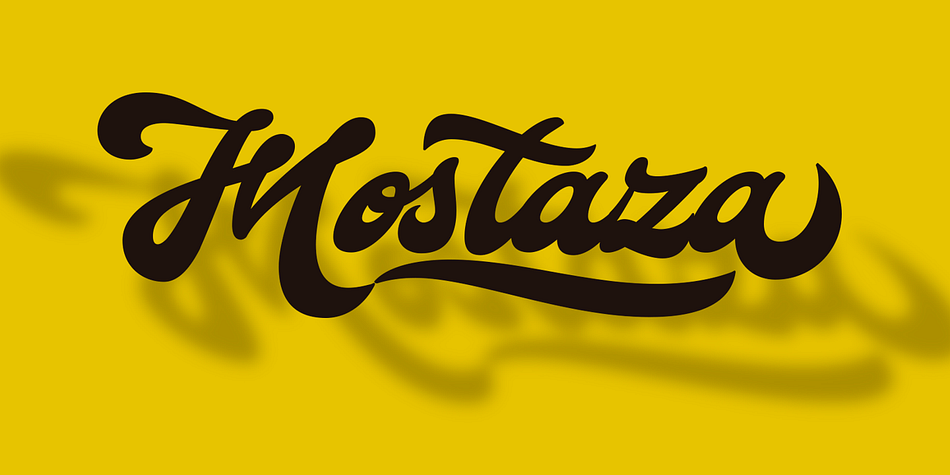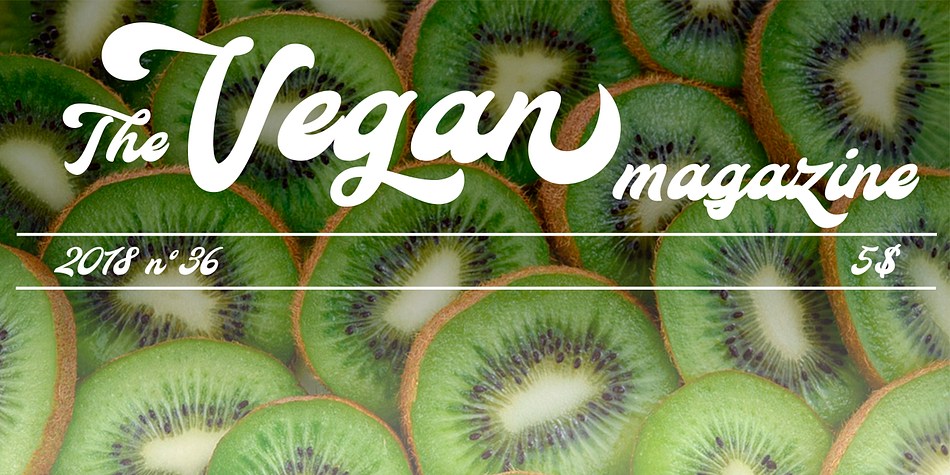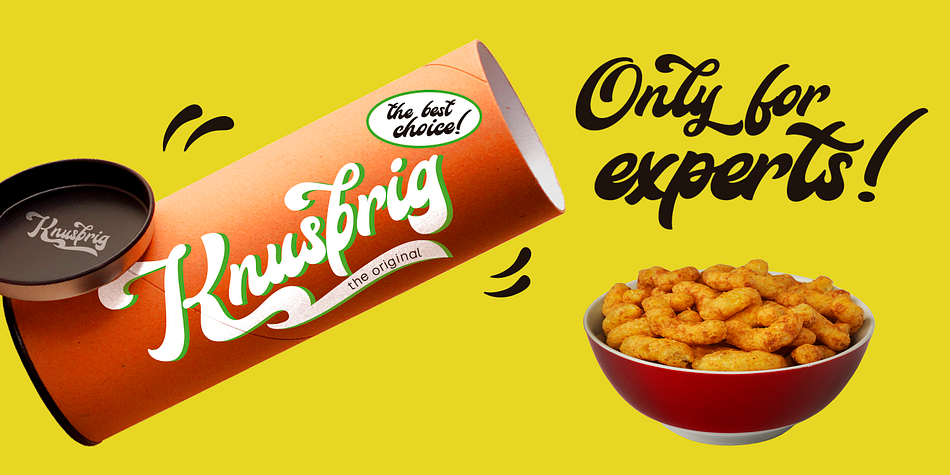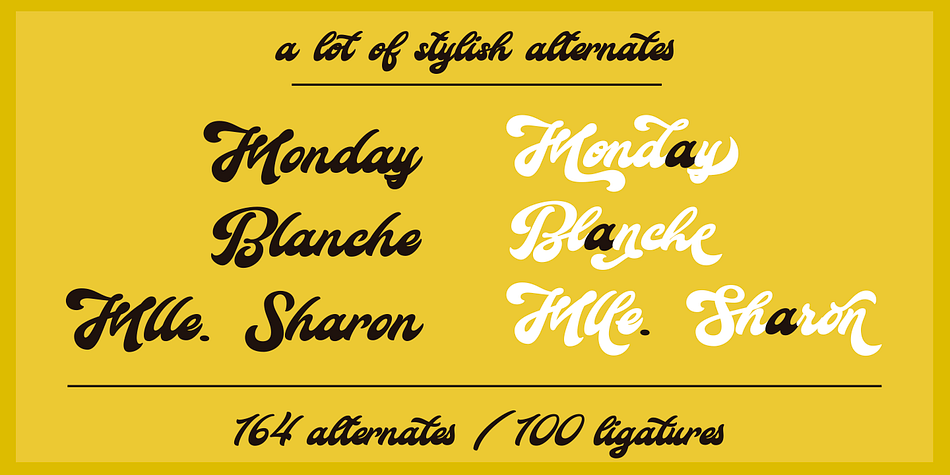
Designed by Carine de Wandeleer, Mostaza is a retro and script font published by Eurotypo.
Mostaza is a new lettering font designed by Carine de Wandeleer. The Open Type features include 164 alternates, also in capital letters, and 100 ligatures. All this makes the text lively and bouncy, without the monotony of obviously repeated letterforms. In addition, we have included some ornaments designed to support the font, some were specially designed to be combined with the letters for a “more calligraphic” effect (access to them through the glyphs palette).
Mostaza is doing very well to create titles, logos and posters for brand and packaging, invitations, greeting cards, magazines and book covers, children’s material, fashion and wherever you want. Enjoy it!